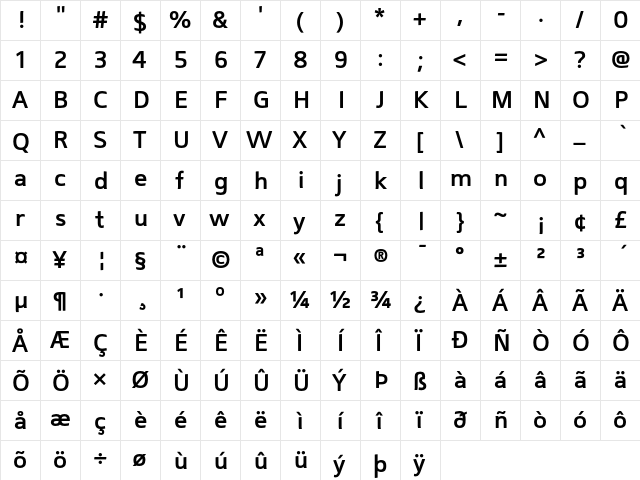
Mentone SemiBold
| Foundry | Jan Schmoeger/Paragraph |
| Designer | Jan Schmoeger |
Design Context for Mentone Typeface
Mentone offers clean, dependable letterforms without strong stylistic allegiance, making it a practical choice for designers who need flexibility. The heavy weight commands attention and anchors typographic hierarchies.